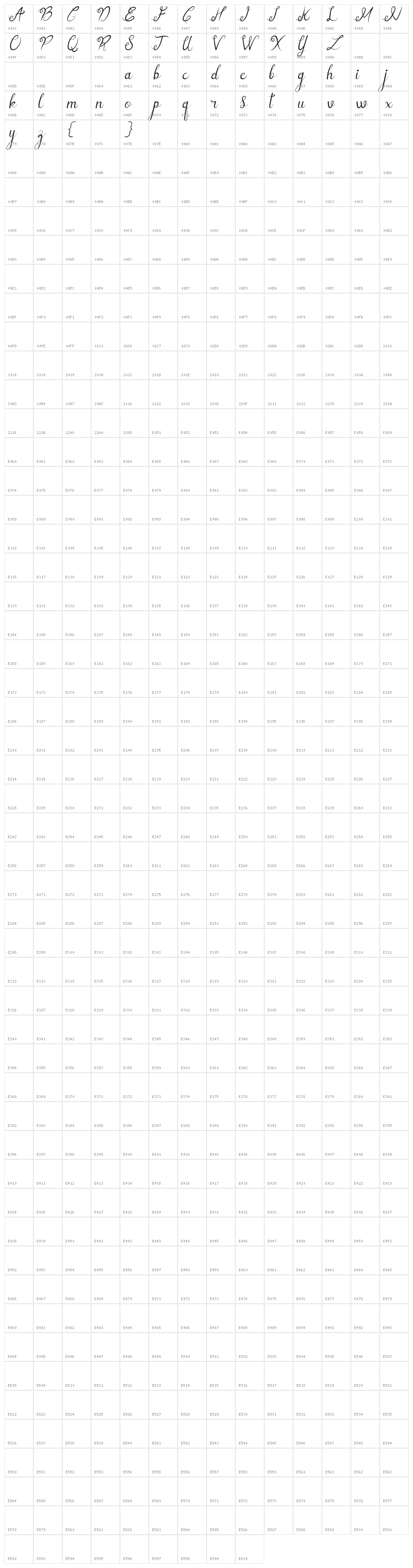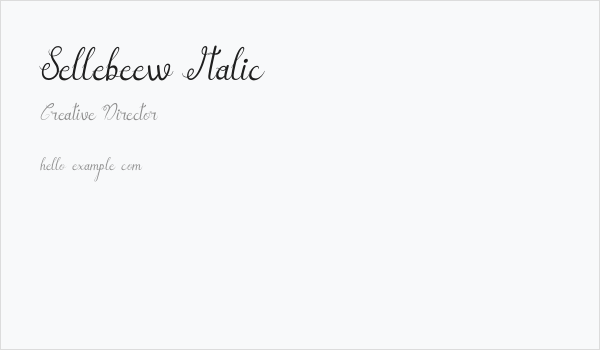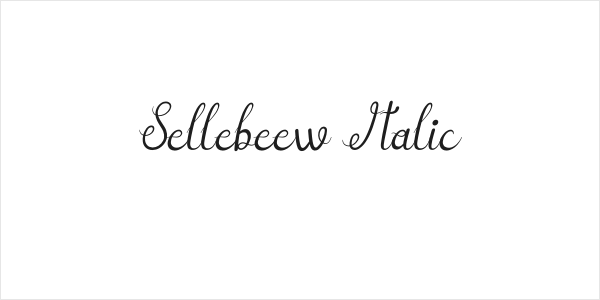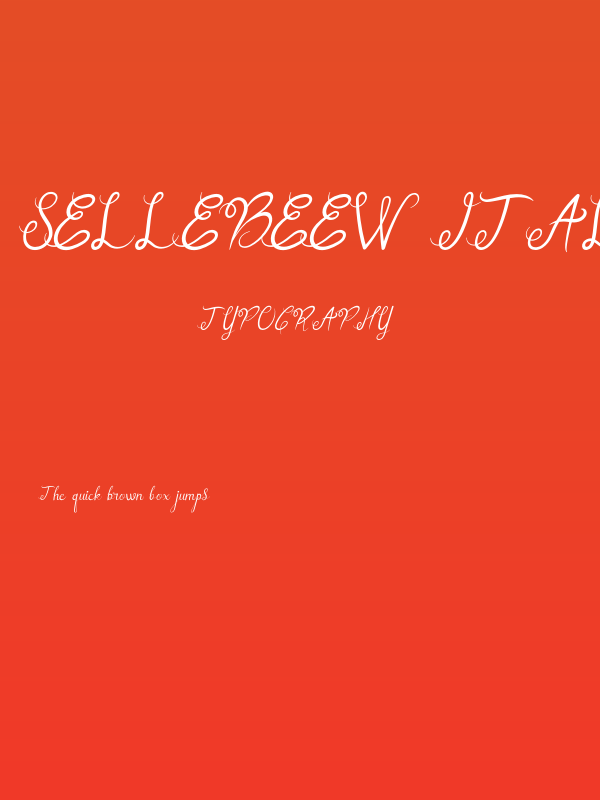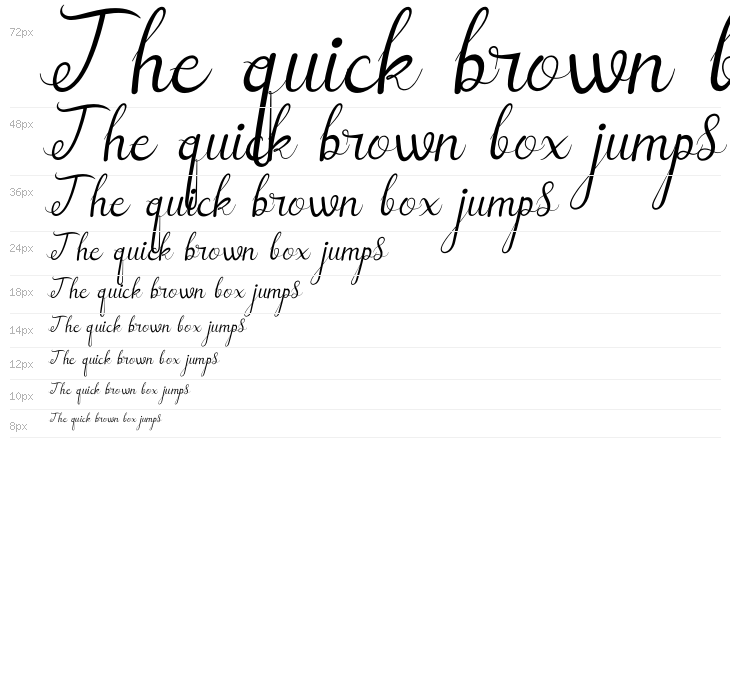
Sellebeew Italic Font
Sellebeew Italic Description
This font features an elegant and flowing script style, characterized by its cursive, handwritten appearance. The letters are interconnected with smooth, sweeping curves, giving it a sophisticated and artistic look. The uppercase letters are particularly ornate, with extended flourishes that add a touch of drama and flair. The lowercase letters maintain a consistent flow, enhancing readability while retaining the decorative essence. The font's italic nature adds to its graceful and dynamic feel, making it suitable for projects that require a personal and stylish touch. The overall design is balanced, with a medium contrast in stroke thickness, ensuring that the font remains legible while still being visually appealing.
| Proposed Projects | Ideal for wedding invitations, greeting cards, branding, and elegant packaging designs. |